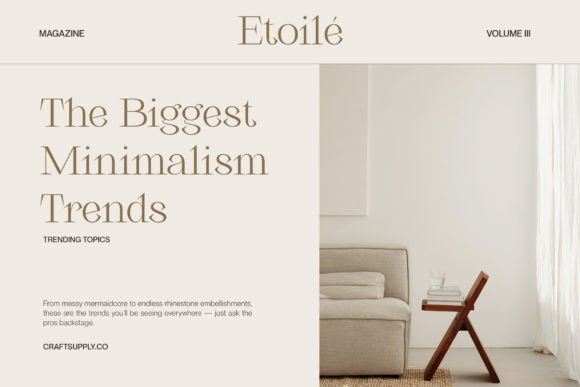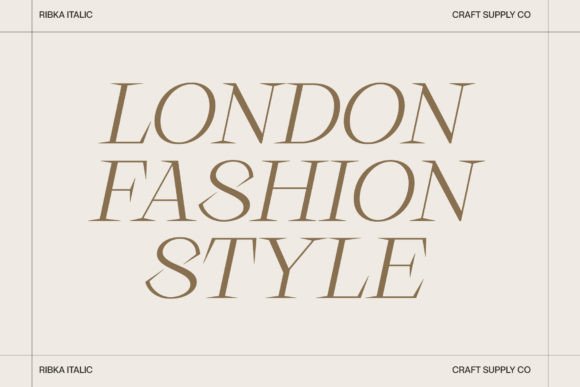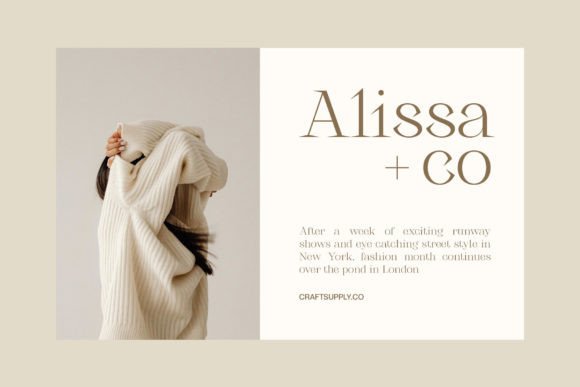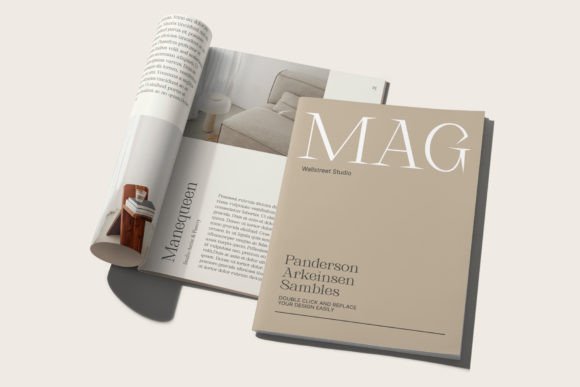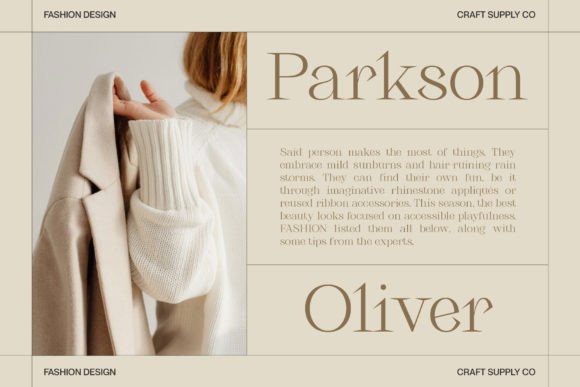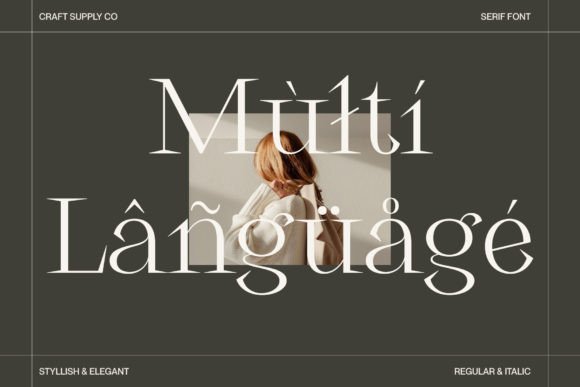
Introduction to Ribka Font
Have you ever stumbled upon a design that left you speechless? The perfect balance of elegance and sophistication, a true masterpiece that makes you wonder how it was created. For designers, this feeling is a constant quest, and the discovery of a high-quality font like Ribka Font is a dream come true. With its exquisite pointed serifs and timeless charm, Ribka Font is the perfect design resource to elevate any creative project to new heights.
Imagine being able to create a stunning invitation with a transparent background, or develop a brand identity that exudes refinement and exclusivity. With Ribka Font, the possibilities are endless, and its free download makes it an accessible design resource for designers of all levels. Whether you’re working on a high-end project or a personal creative endeavor, Ribka Font is an essential tool to add a touch of sophistication to your work.
Key Features of Ribka Font
- High-quality, elegant design perfect for creative projects requiring a touch of sophistication.
- Transparent background, making it ideal for use on images, graphics, or other design elements.
- Available for free download, offering an excellent design resource for professionals and hobbyists alike.
- Includes multiple font styles and weights, allowing for a wide range of creative possibilities.
- Designed to be highly scalable, with excellent resolution at sizes ranging from 12px to 72px.
- Perfect for use in logos, branding, typography, and other design elements where a unique and stylish font is required.
Honest Review: Ribka Font
I recently stumbled upon the Ribka Font, and I must say it’s a unique addition to my design library. As a designer, I’m always on the lookout for high-quality fonts that can elevate my creative projects.
The Ribka Font is a free download, which is a major plus in my book. I appreciate that the creators made this beautiful font available to the design community without any restrictions. The transparent background is a great feature, allowing me to easily layer the font over any image or design element.
What works well with the Ribka Font is its versatility. It’s perfect for a variety of design projects, from logos to typography-based art. The font’s elegant and refined style makes it suitable for both modern and traditional designs.
- ✨ Unique and elegant design
- ✨ Perfect for creative projects, logos, and typography-based art
- ✨ Transparent background for easy layering
One limitation of the Ribka Font is its limited character set. While it’s not a deal-breaker, it might be a concern for designers who need a font with a comprehensive character set.
Overall, I’m impressed with the Ribka Font. It’s a high-quality design resource that can add a touch of sophistication to any project. I’d definitely recommend it to fellow designers looking for a unique and elegant font.
The Ribka Font is a versatile font that can be used for a variety of creative projects, including logos, business cards, and social media graphics. It’s also a great font to use for presentations and reports, where a high-quality font is essential. Additionally, the font’s transparent background makes it perfect for use in digital design, where a background is not always necessary.